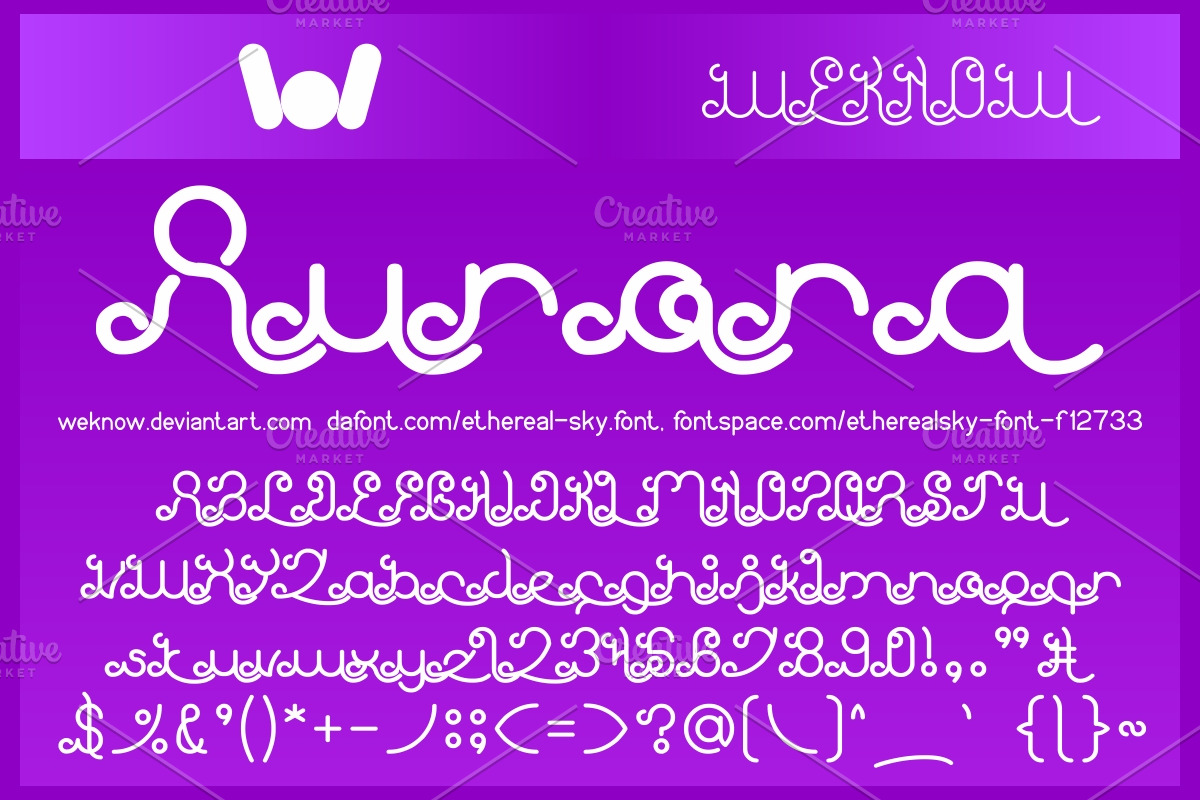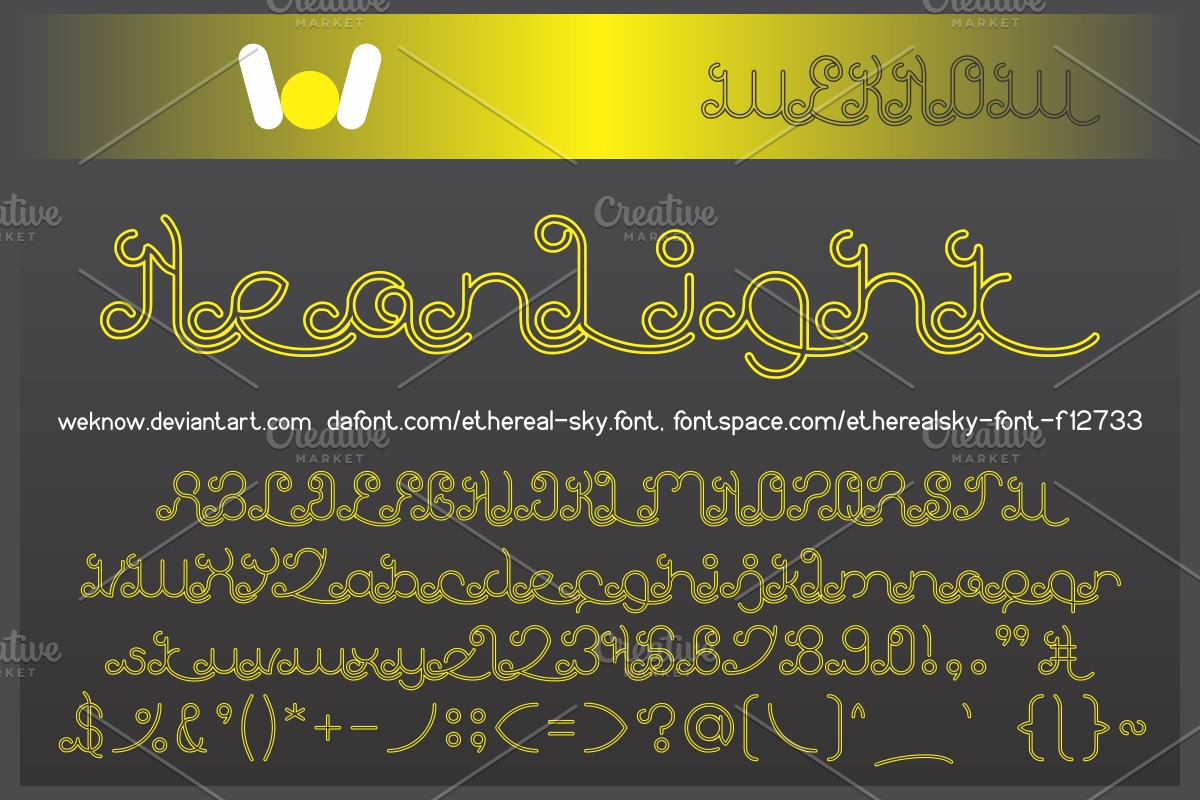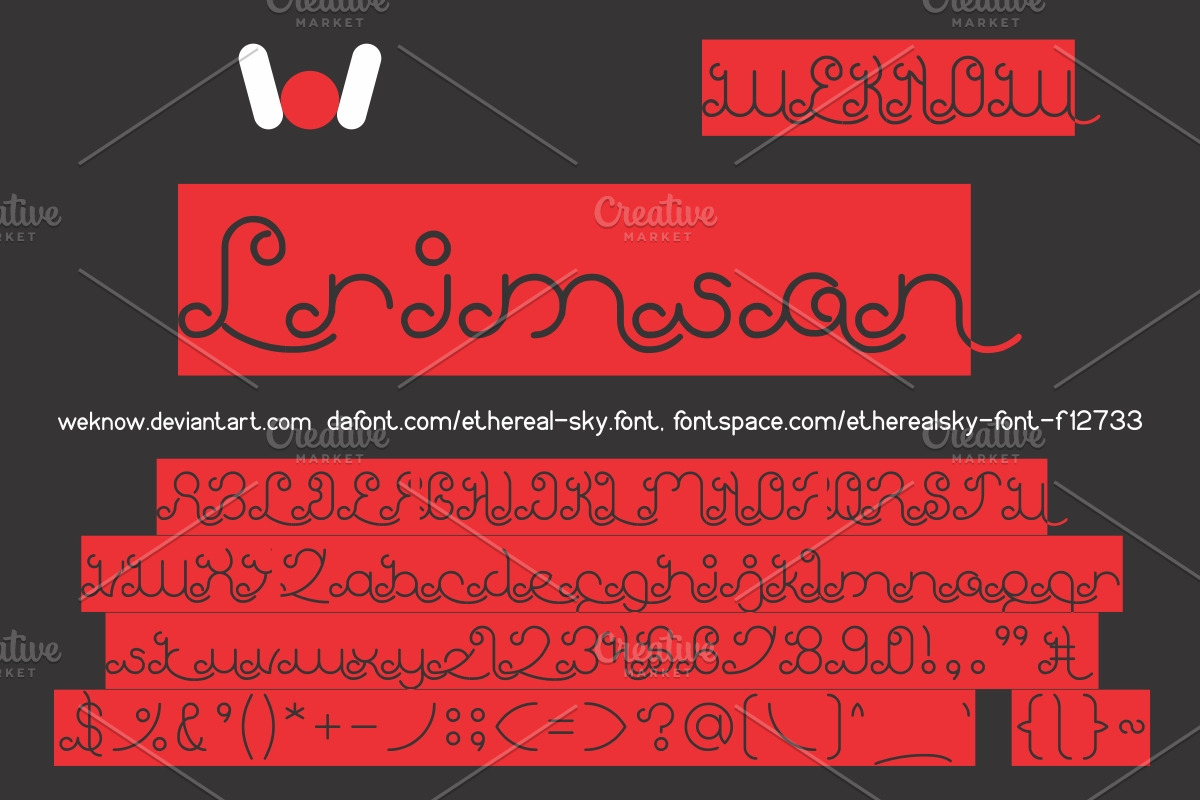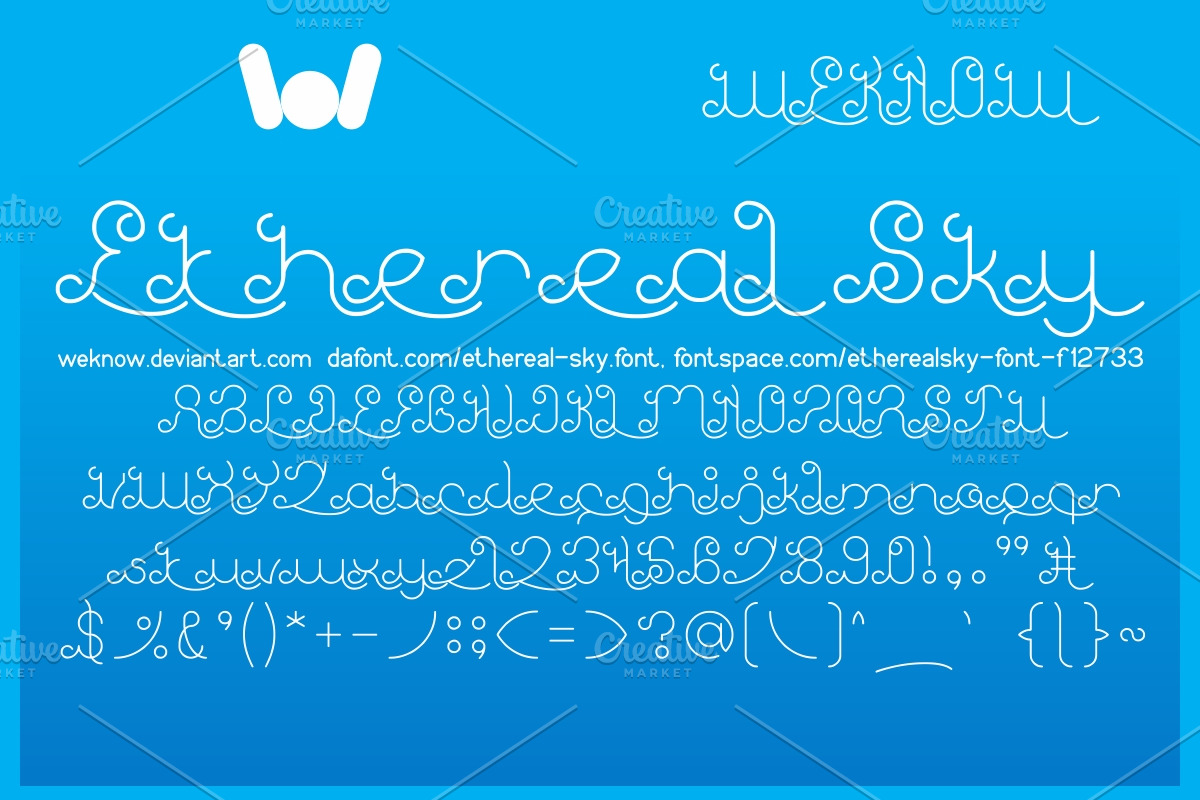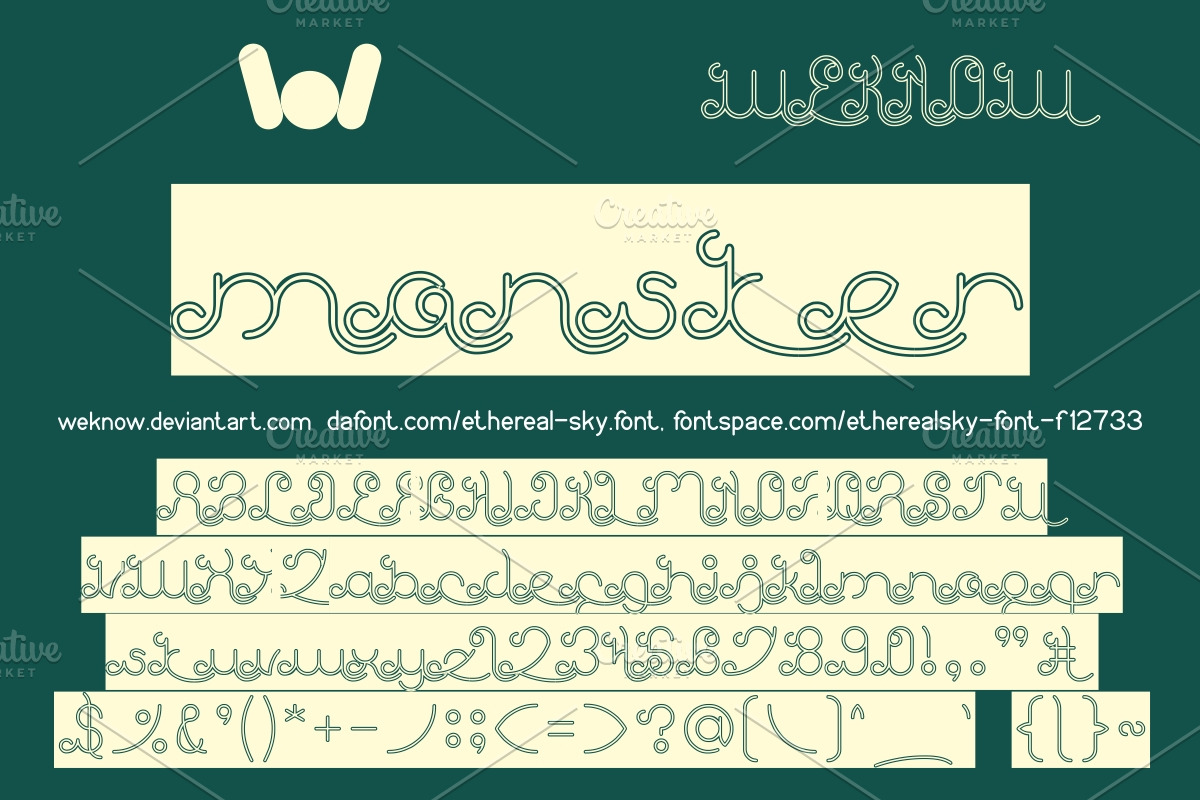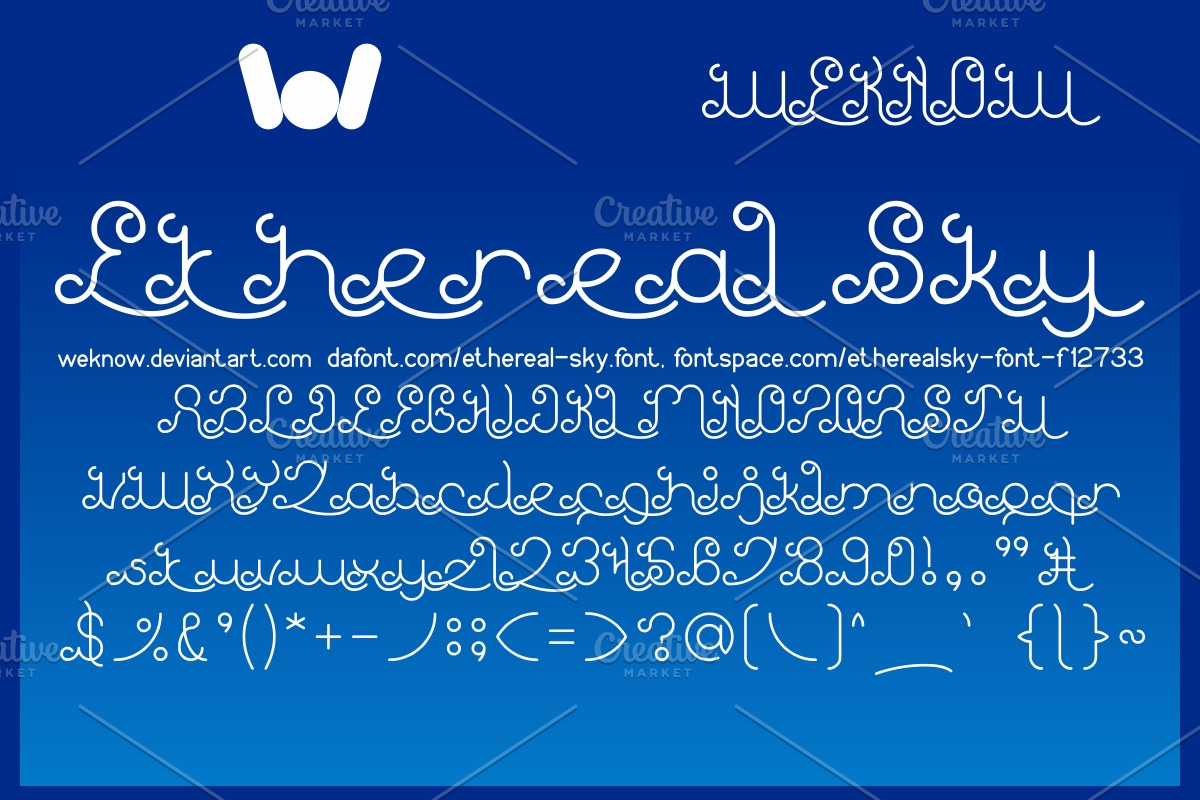
ethereal sky font
ethereal sky font by weknow is a font selected for branding, posters, packaging, typography.
- Ethereal Sky-Light Regular
- Ethereal Sky Regular
- Ethereal Sky Bold
- Ethereal Sky-Hollow-Inverse Regular
- Ethereal Sky-Hollow Regular
- Ethereal Sky-Inverse Regular
Why ethereal sky font is worth a look
ethereal sky font by weknow fits naturally into Branding, posters, packaging, typography.